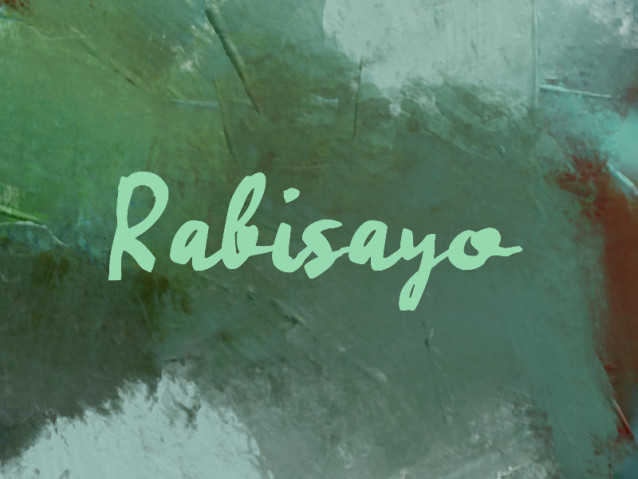
Rabisayo Font
Rabisayo Font is a modern handwritten script font that features smooth, flowing strokes and a casual, elegant style. Its natural brush-like appearance makes it perfect for creative projects such as logos, invitations, social media graphics, and branding materials. The font conveys a sense of warmth, personality, and artistic expression, making any design feel more personal and engaging.